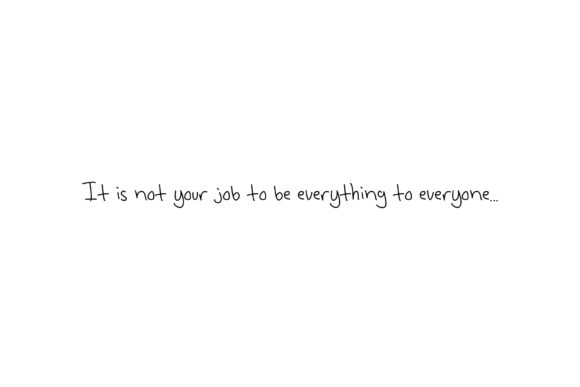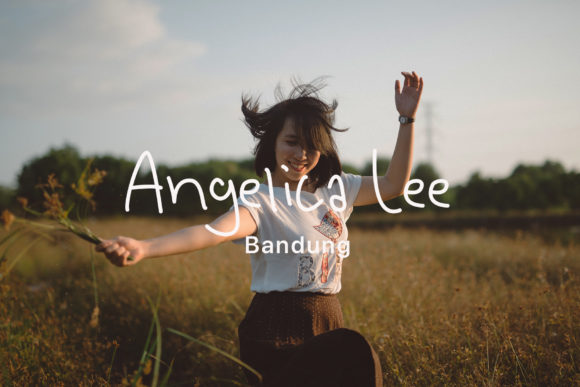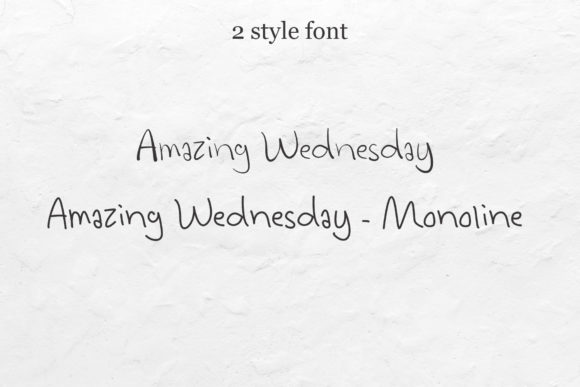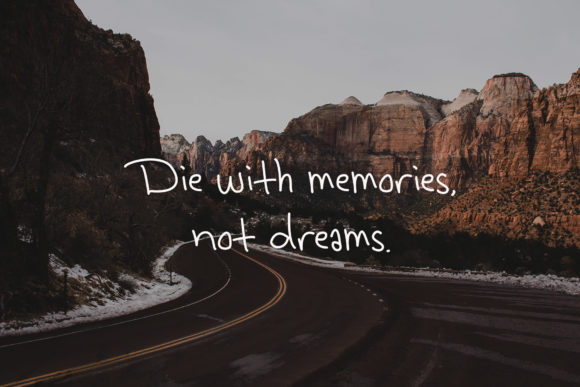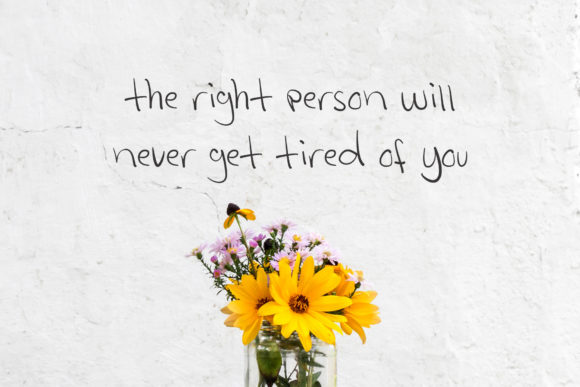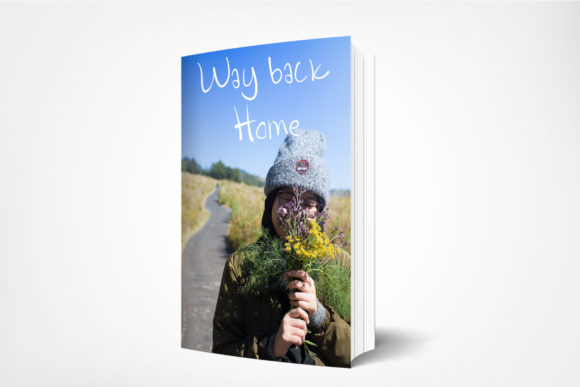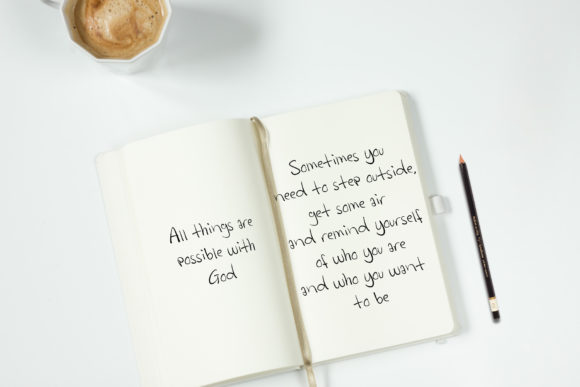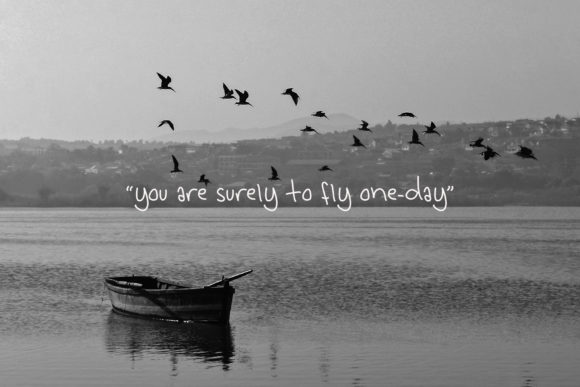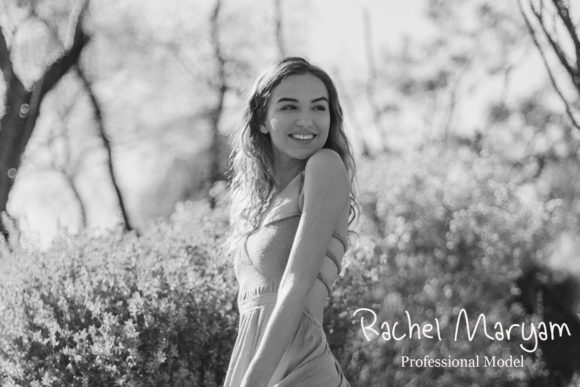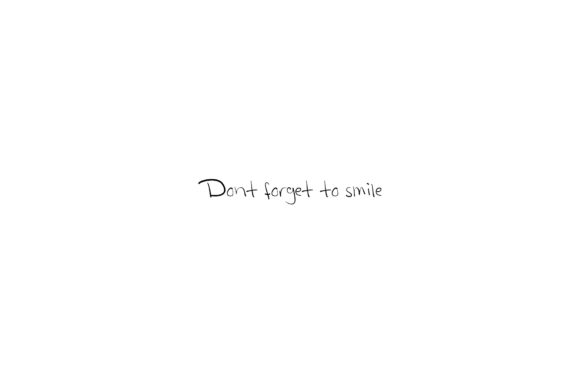
Amazing Wednesday Font
About Amazing Wednesday Font
Amazing Wednesday is a simply amazing handwritten font. It has an unique flow with 2 styles.
This font is just perfect for all the inspirational quotes you can think of.